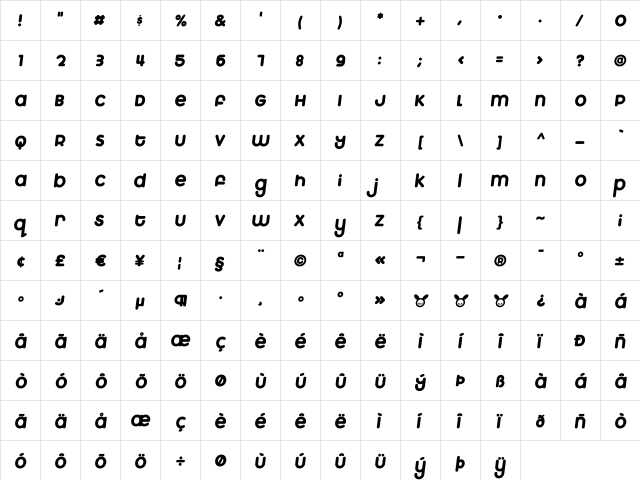
MarshmallowSuper Puff Italic Regular
Design Context for MarshmallowSuper Puff Italic Typeface
MarshmallowSuper Puff Italic offers clean, dependable letterforms without strong stylistic allegiance, making it a practical choice for designers who need flexibility. Its italic angle brings a sense of urgency and motion to the letterforms.
Pro Tip: Use MarshmallowSuper Puff Italic for emphasis, pull quotes, and subheadings where its slanted energy can add rhythm to the layout.